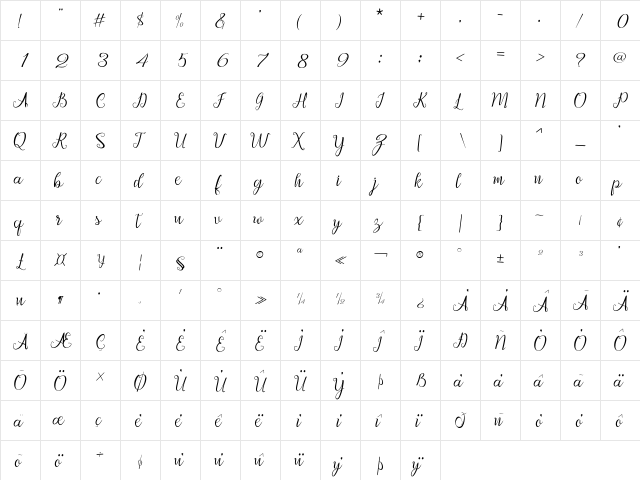
Afrile script Regular
| Foundry | Fajriadi pholetter |
| Designer | Fajriadi pholetter |
Design Context for Afrile script Typeface
Afrile script brings a calligraphic fluidity to the page — its connecting strokes and expressive curves give it an unmistakably human quality.
Font Pairing: Combine Afrile script with a simple geometric sans for maximum contrast — the tension between flowing curves and clean structure is a classic typographic pairing.
Pro Tip: Pair Afrile script with a clean sans-serif for supporting text. The contrast between fluid script and geometric structure creates an elegant typographic hierarchy.